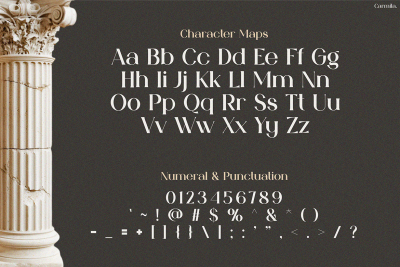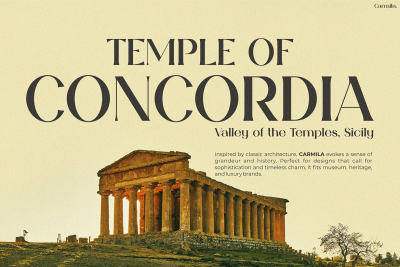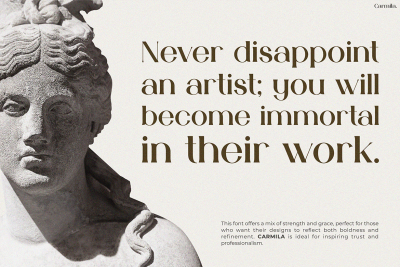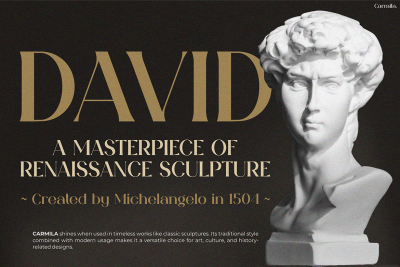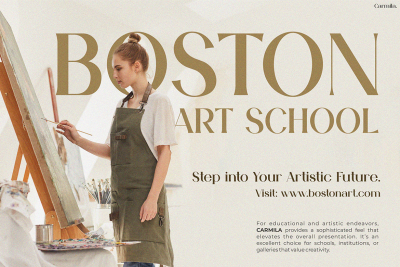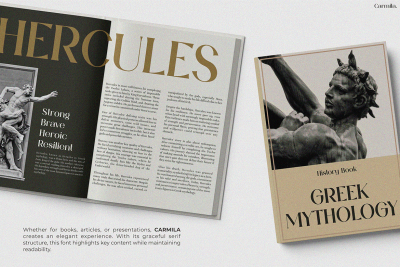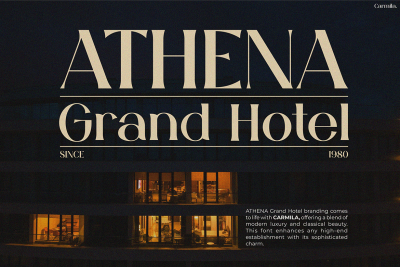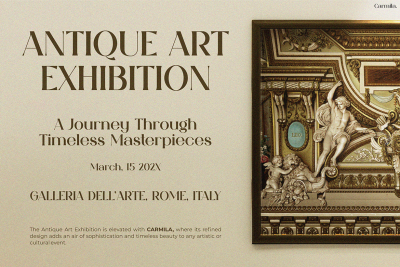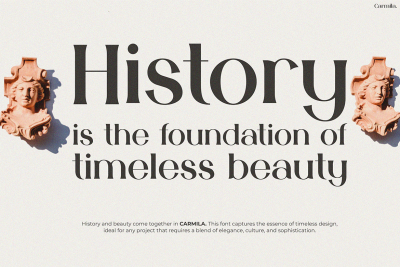
Instagram Font Carmila is a refined serif typeface that exudes sophistication, strength, and timeless beauty. Designed for creators who seek a perfect balance between modern minimalism and classic elegance, Carmila features high-contrast strokes, sharp details, and graceful curves. As a result, each letter carries a sense of confidence, making it an ideal choice for projects that require both power and refinement.
This font seamlessly blends luxury with readability, making it highly versatile for various design needs. Moreover, its bold yet elegant structure ensures that text commands attention without overwhelming the reader. The unique letterforms provide a prestigious feel, enhancing visual hierarchy in any composition. Whether for branding, editorial designs, or social media graphics, Carmila elevates every project with its strong yet graceful aesthetic.
As a high-end Instagram font, Carmila naturally enhances social media visuals, making posts look polished and professional. Furthermore, whether youโre designing for personal branding, lifestyle content, or high-fashion campaigns, this font captures the audienceโs attention effortlessly. The well-crafted letter spacing and modern appeal ensure that it remains stylish across different platforms.
Beyond digital use, Carmila also excels in print media, such as luxury magazines, wedding invitations, and corporate branding. Thanks to its sophisticated structure, it integrates seamlessly into high-end editorial layouts, ensuring your design looks flawless in both digital and physical formats.
Who is Instagram Font Carmila Perfect For?
Carmila is the perfect choice for designers, content creators, business owners, and luxury brands looking for a typeface that conveys elegance and professionalism. It works exceptionally well for:
- Luxury and Fashion Brands โ Ideal for upscale brand identities, packaging, and advertisements. Consequently, it adds an air of exclusivity and class to logos, website headers, and promotional materials.
- Social Media Influencers & Content Creators โ Whether youโre posting on Instagram, YouTube, or Pinterest, Carmila enhances visuals with a refined, high-end aesthetic. Therefore, itโs perfect for lifestyle bloggers, beauty brands, and personal branding.
- Editorial Designers & Magazines โ This font fits beautifully in fashion magazines, travel blogs, and cultural publications. In addition, its stylish contrast makes every headline striking and memorable.
- Wedding & Event Planners โ Carmilaโs elegance suits wedding invitations, event branding, and stationery. As a result, it ensures a sophisticated presentation.
- Business and Corporate Branding โ Whether designing high-end business presentations, luxury real estate brochures, or professional portfolios, this font conveys authority and excellence. Moreover, it helps businesses establish credibility and trust.
- Web and App Designers โ Perfect for websites and mobile apps that aim for a sleek, modern, and stylish look. Additionally, its readability ensures usability without compromising aesthetics.
Ultimately, if youโre looking for a font that merges modern elegance with classic sophistication, Instagram Font Carmila is the perfect choice. With its graceful yet powerful design, it becomes a must-have for designers and brands that value high-end aesthetics.